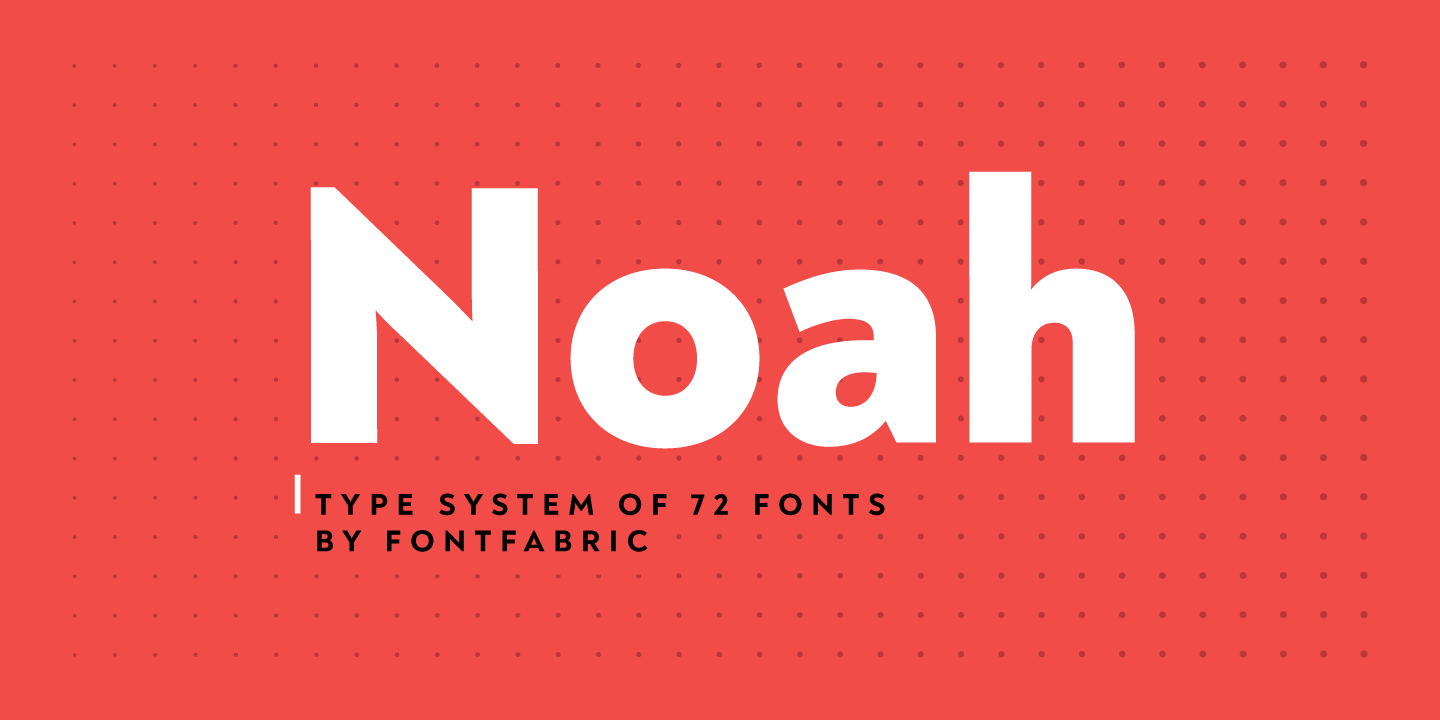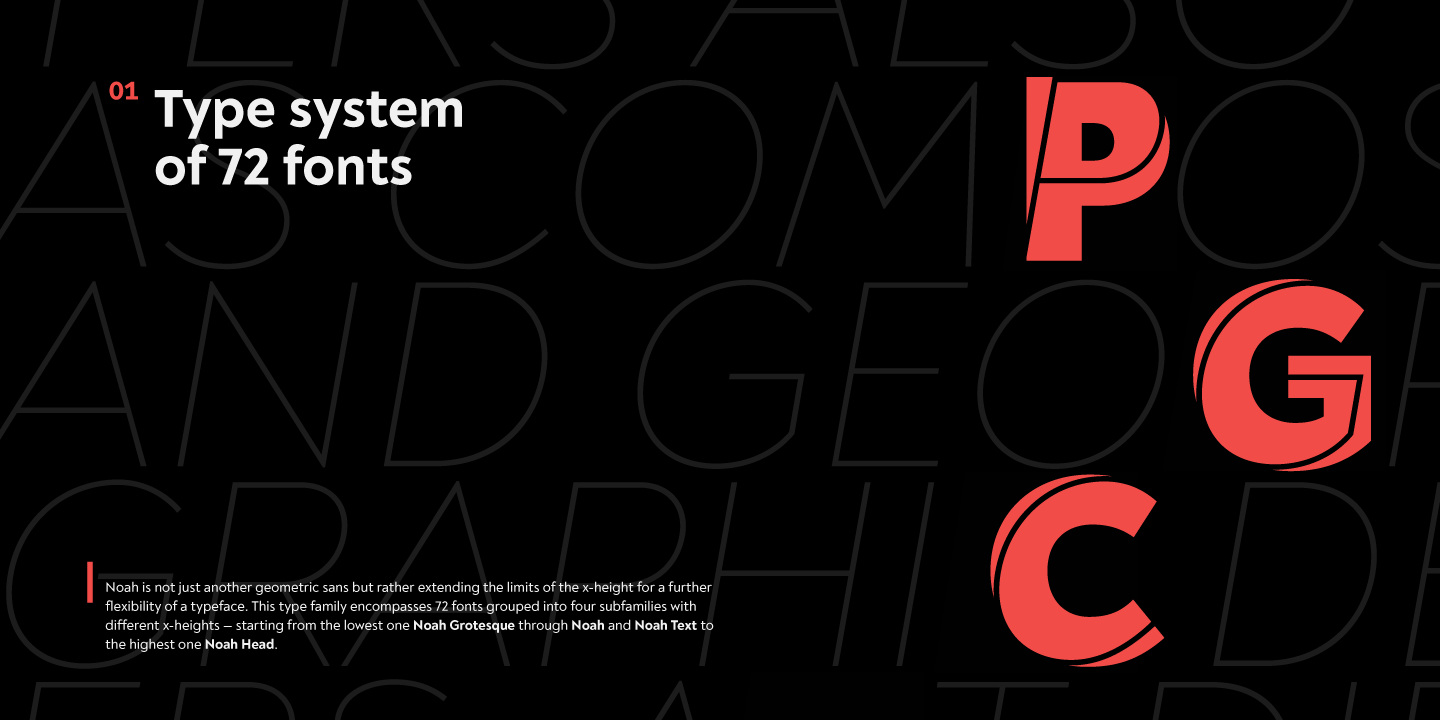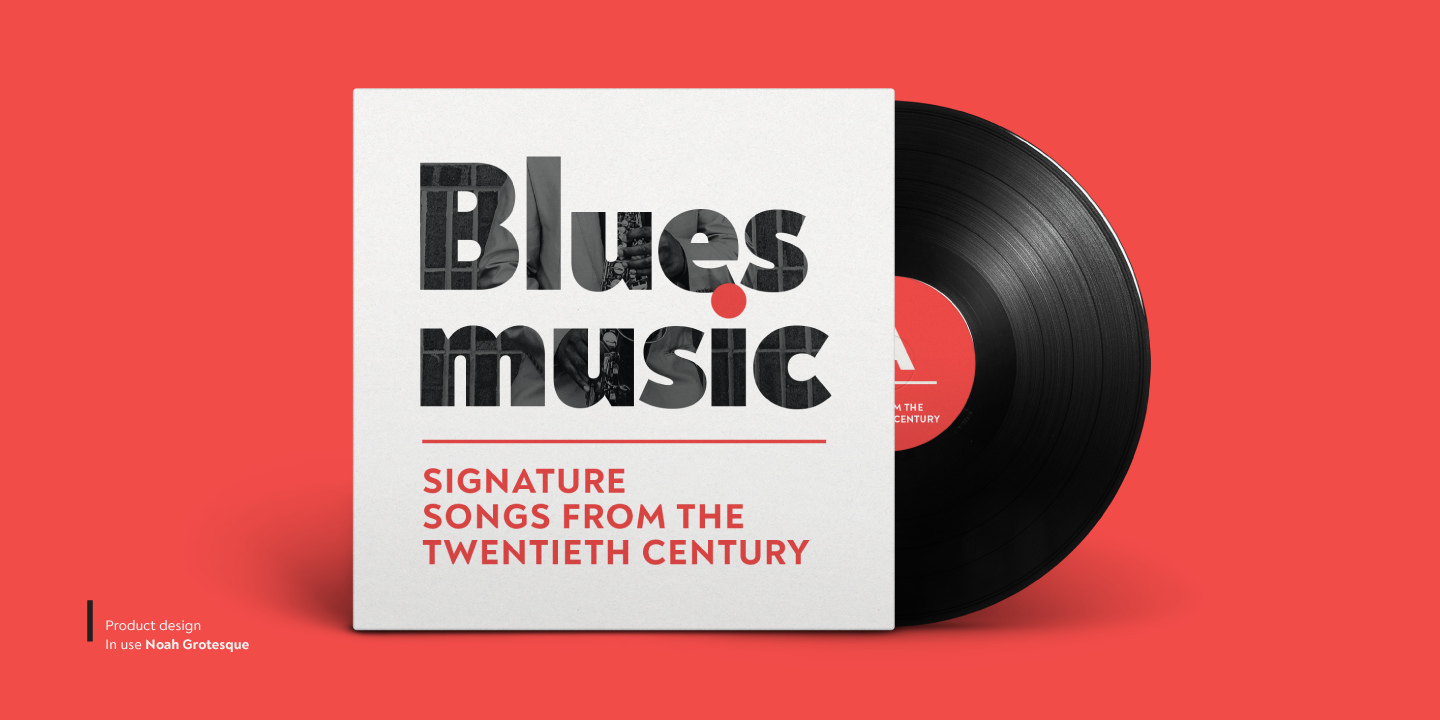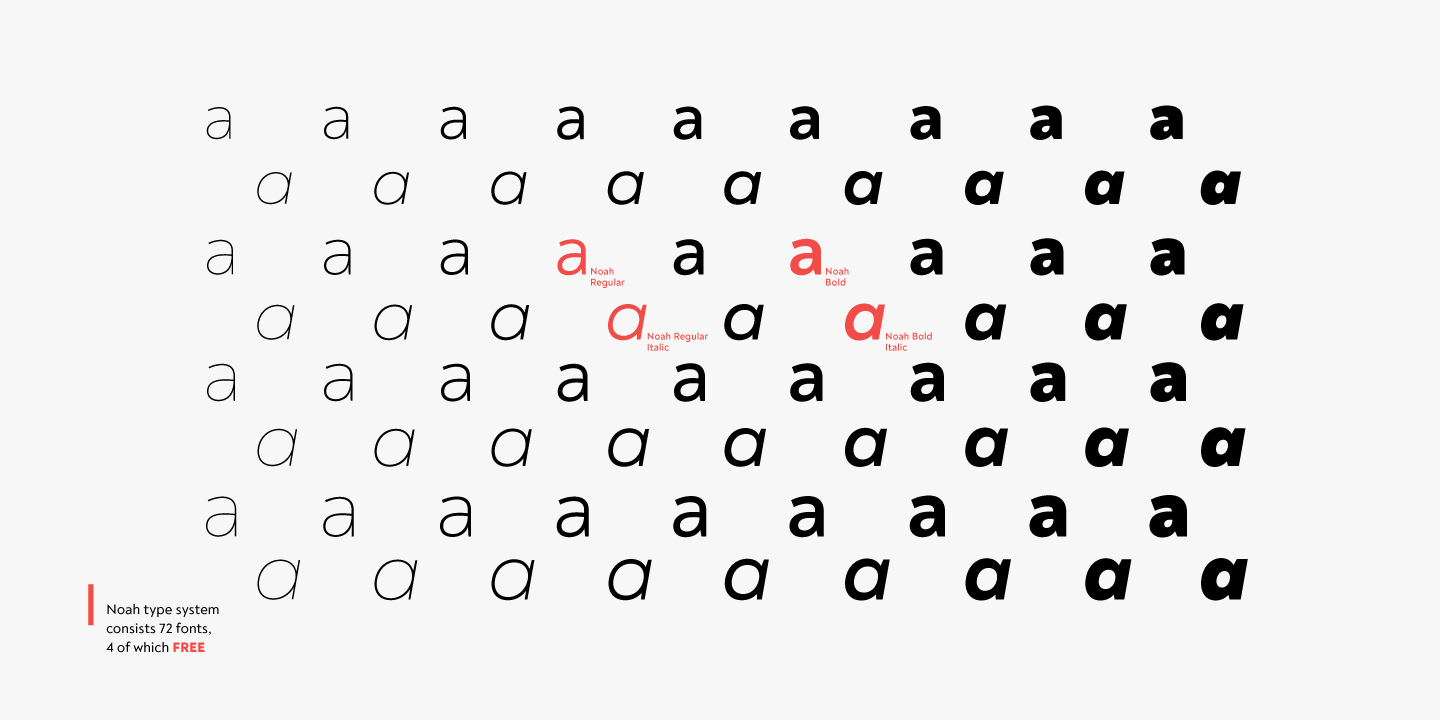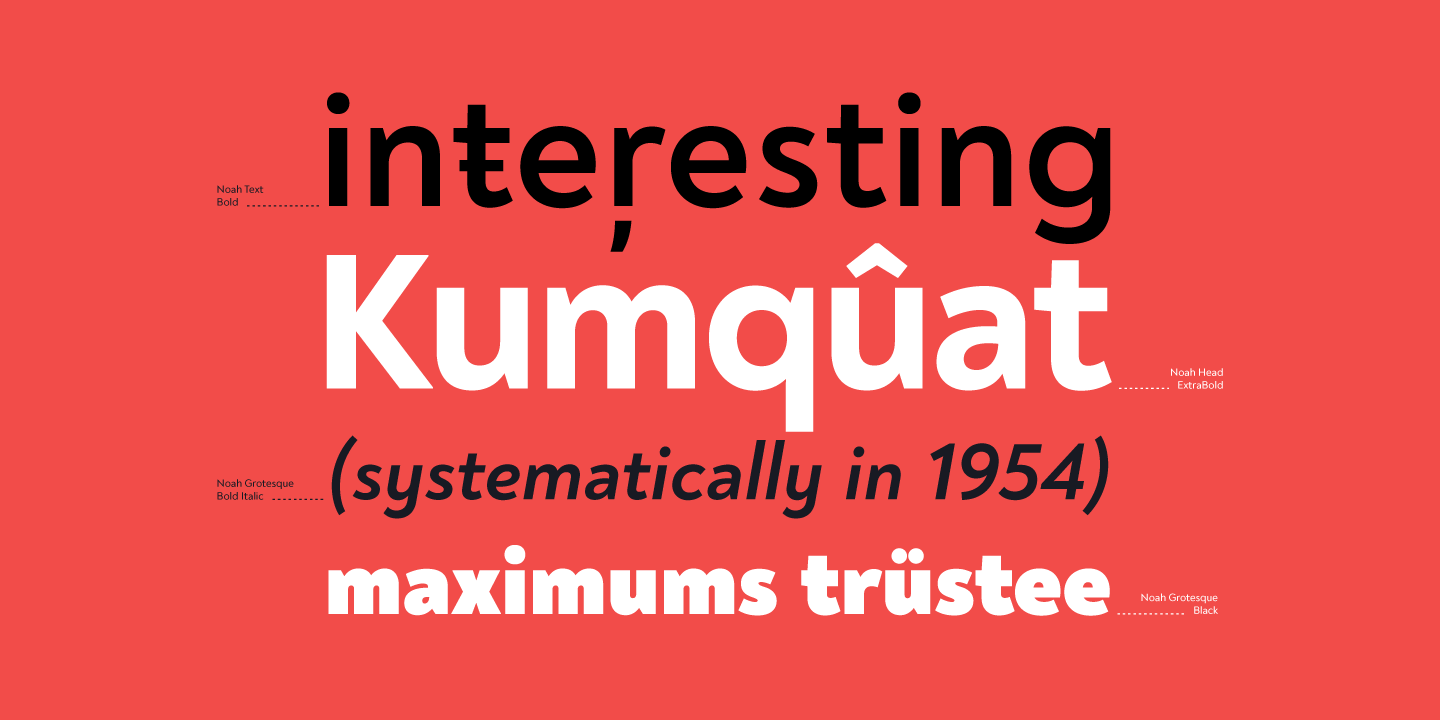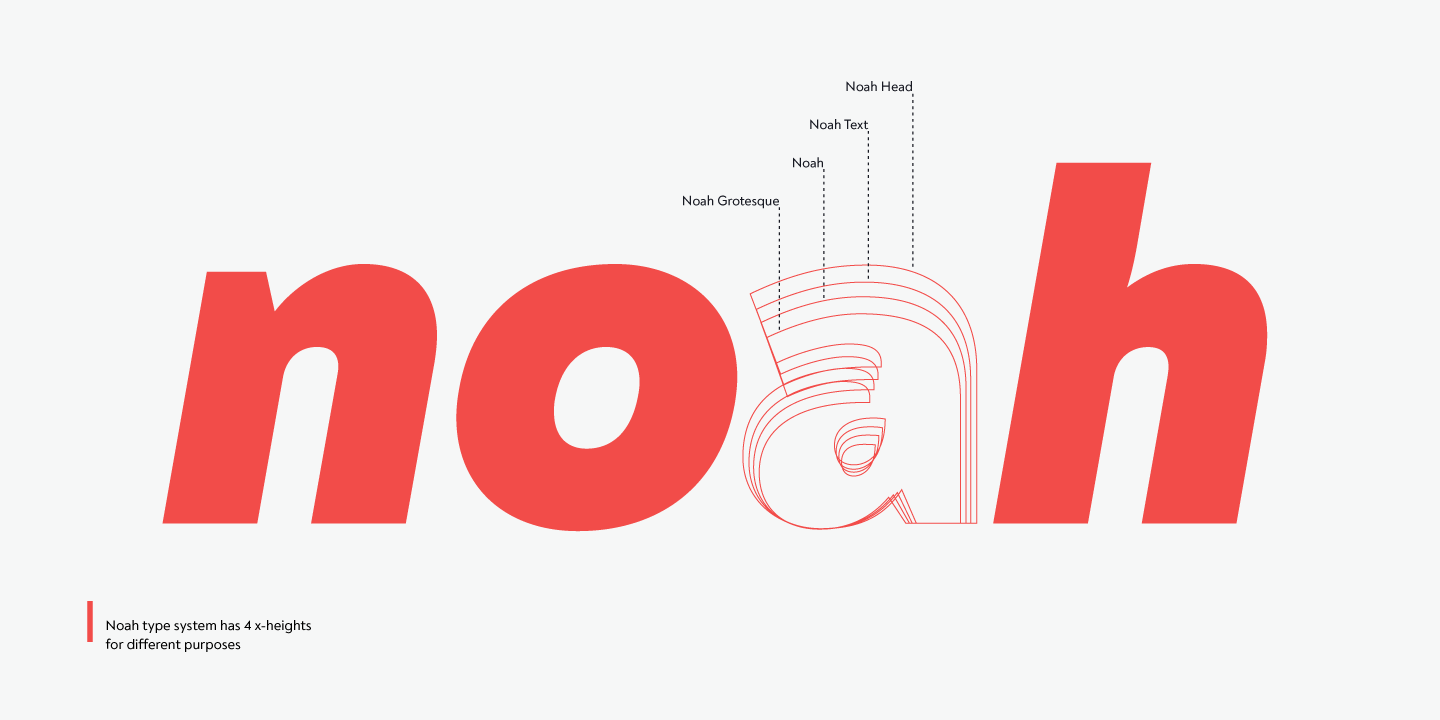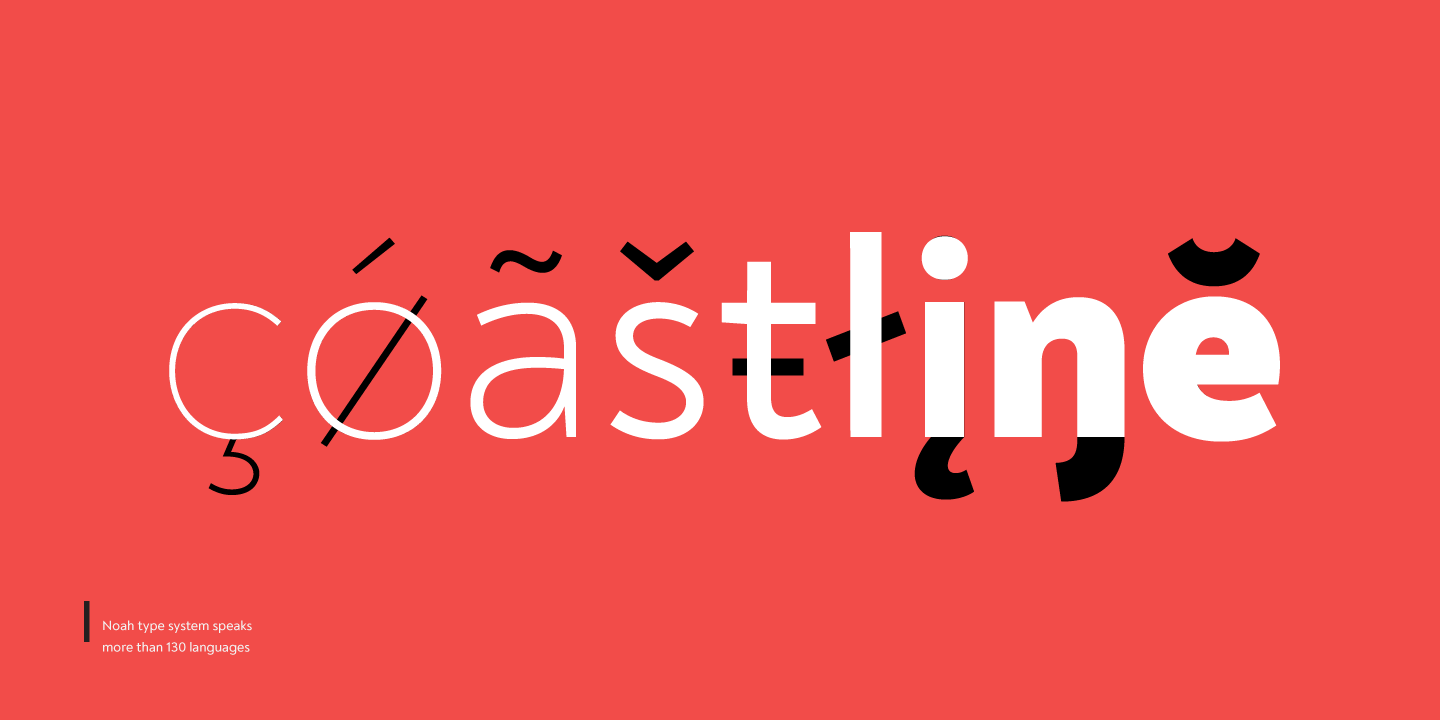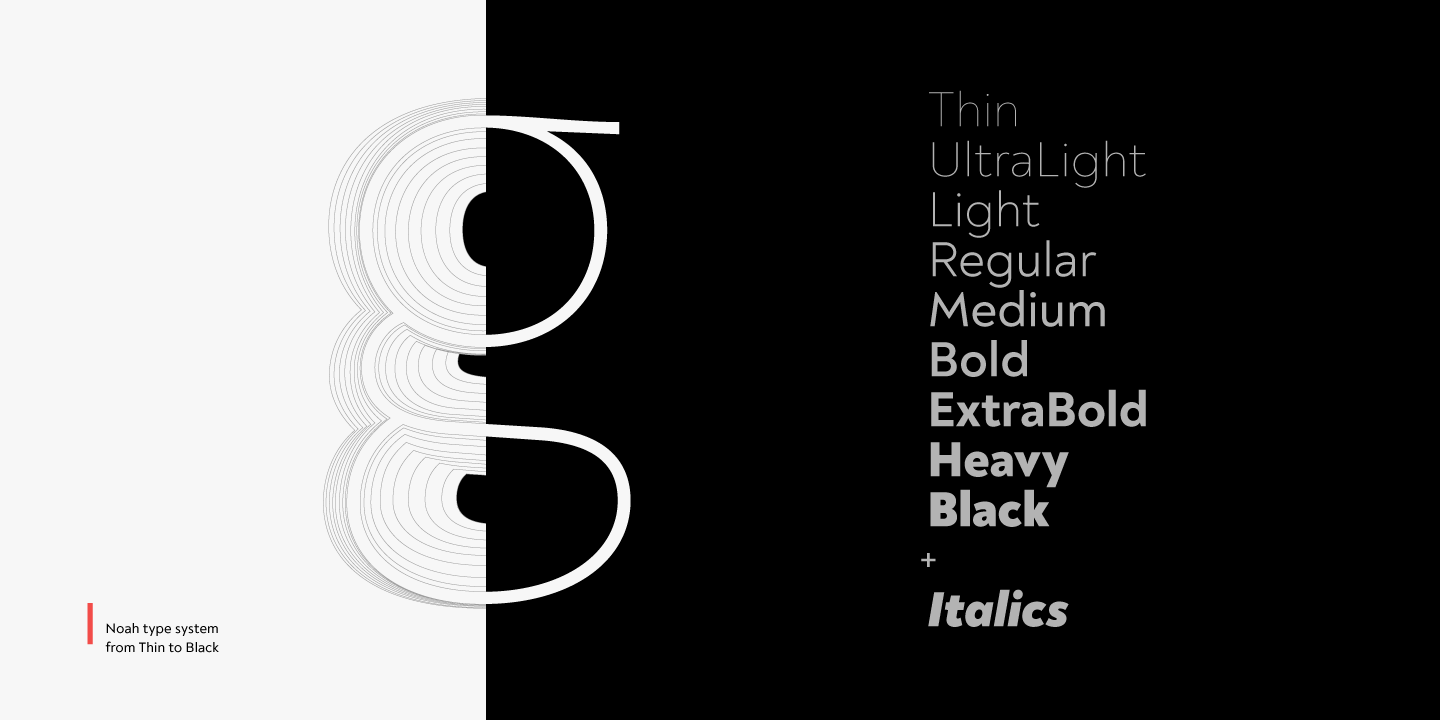
About the Noah Font
About Noah Font Family [Noah PDF Type Specimen][Download 4 Free Fonts]Noah is more than just another geometric sans, With sharp details and a distinctive arrangement, it further extends the limits of the x-height, providing unparalleled flexibility, The specific structure is paired with normal width proportions, moderate contrast and vertical stress – making Noah well suited for a wide range of typographic purposes
This type family consists of 72 fonts divided into four subfamilies with different x-heights – ranging from Noah Grotesque at the bottom, through Noah and Noah Text, and extending to the highest one – Noah Head, The entire set includes styles from Thin to Black, with matching true italics and supports Extended Latin and Cyrillic scripts in more than 130 languages
The inclusion of terminals with a humanistic flavor and typographic letter alternates, such as the binocular “g” or the geometric “a”, offers a blend of the best aspects of both geometric and grotesque typeface classics, Noah features 4 weights that are available completely FREE
Features:• Over 650 glyphs in 72 styles (Thin to Black)• Extended Latin and Cyrillic scripts for more than 130 languages;• 4 different x-heights;• Normal width proportions;• Moderate contrast and vertical stress;• Geometric characteristics and terminals with humanistic flavor